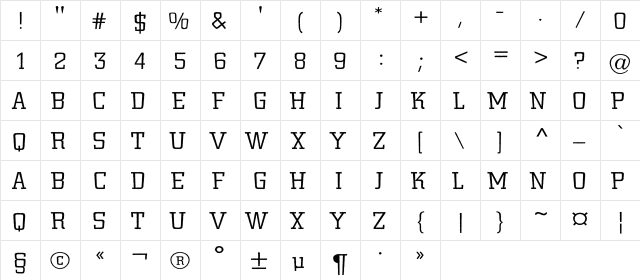
a_CityNovaTitulRgLt Regular
Design Context for a_CityNovaTitulRgLt Typeface
a_CityNovaTitulRgLt offers clean, dependable letterforms without strong stylistic allegiance, making it a practical choice for designers who need flexibility.